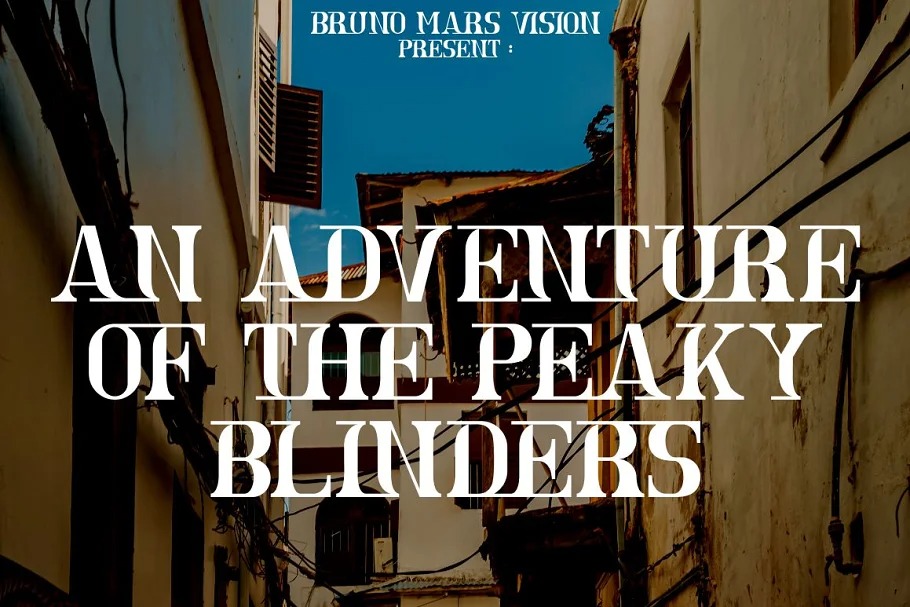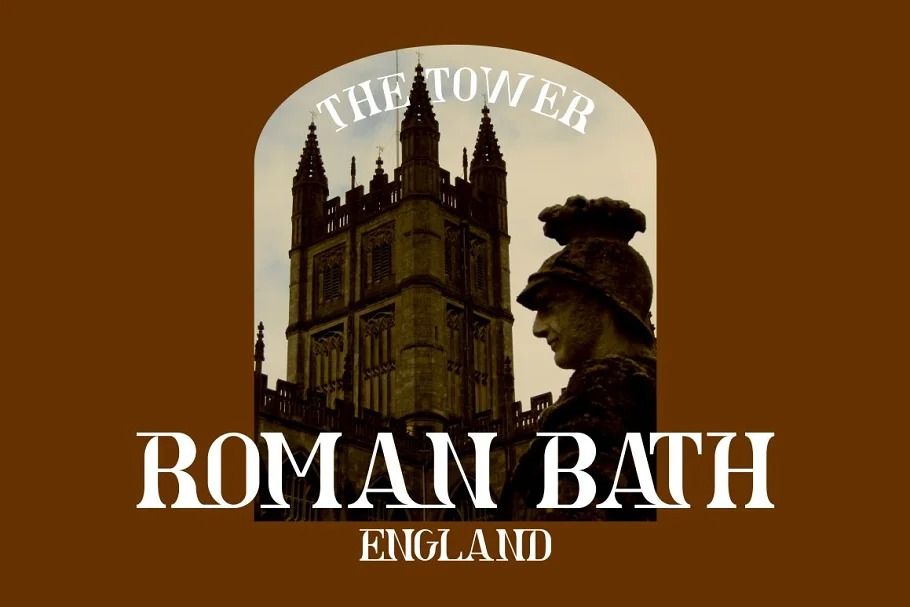
Astra Goldie Serif Font is unique medieval display font with bold and complex personality. This font is inspired by the bold font style and well balanced lines.This font has a surprise from alternate that will make your work even more beautiful.
This font is perfect for a professional touch which makes it even more unique and classic. But this font is also suitable for logos, branding, greeting cards, invitation cards, advertisements, titles, healines, book titles, stickers, packaging, quotes, posters, t-shirts/apparel, billboards and others.